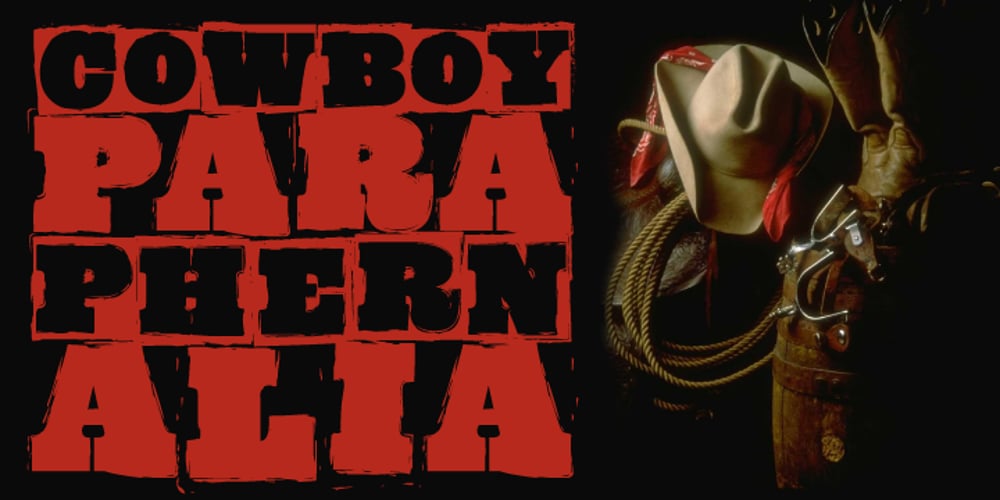
GrungeBob BF Font Family was designed by John Bomparte and published by Bomparte’s Fonts. GrungeBob BF contains 2 styles and family package options. Grunge, in a painterly sort of way; excellent for a wide variety of uses in headline and display.